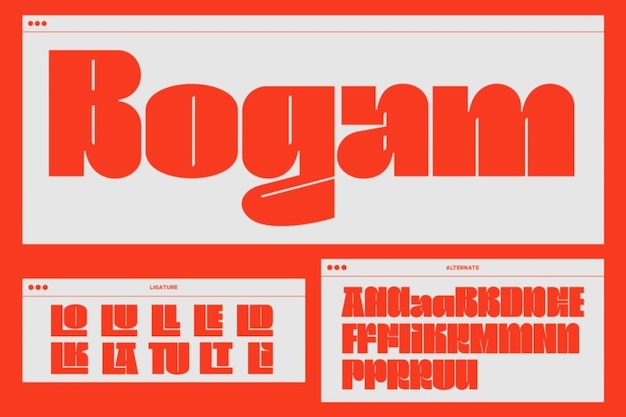
Bogam Font
A font that's bold and ready for the spotlight of magazines. Its letters capture the essence of vintage design, like a blast from the past. With every character, you're transported to a world of classic style. 'Bogam' adds an audacious touch to your text, where each letter is a brushstroke of retro allure, creating a typographic masterpiece that's both timeless and confidently bold.